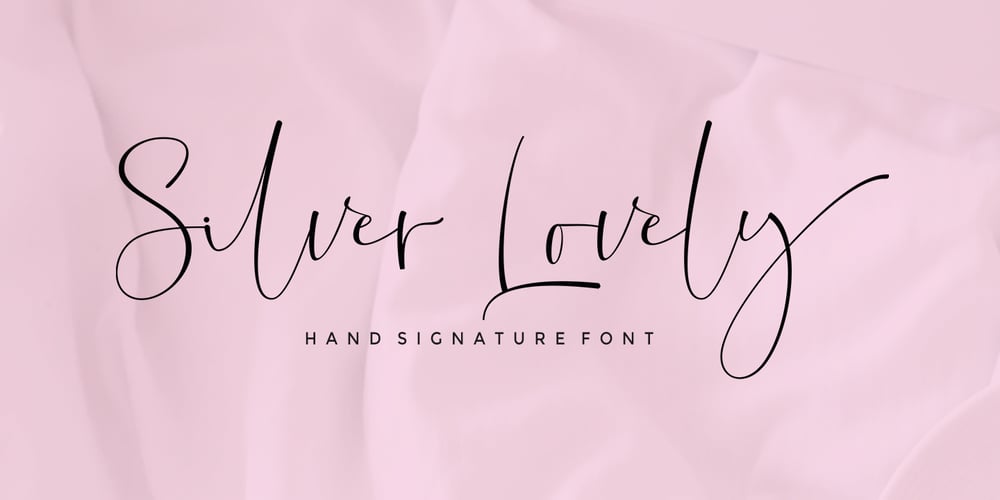
Silver Lovely Font Family was designed by Reka Safriani and published by Selotype. Silver Lovely contains 1 styles and family package options. Silver Lovely is a script that is both narrow and modern. It is slender, feminine and classy, while still maintaining a friendly feel. Silver Lovely is versatile and will work perfectly for fashion, e-commerce brands, trend blogs, wedding boutiques or any business that wants to appear upscale and chic. With its many different stylistic characters, Silver Lovely is perfect for creating original and functional designs. It has extensive language support and tons of ligatures, alternates, stylistic sets that add visual interest to every letter. The overall feel of the font is elegant, sophisticated with a touch of informal and it is ideal if you want to convey a sense of class and style.Thanks so much for looking.